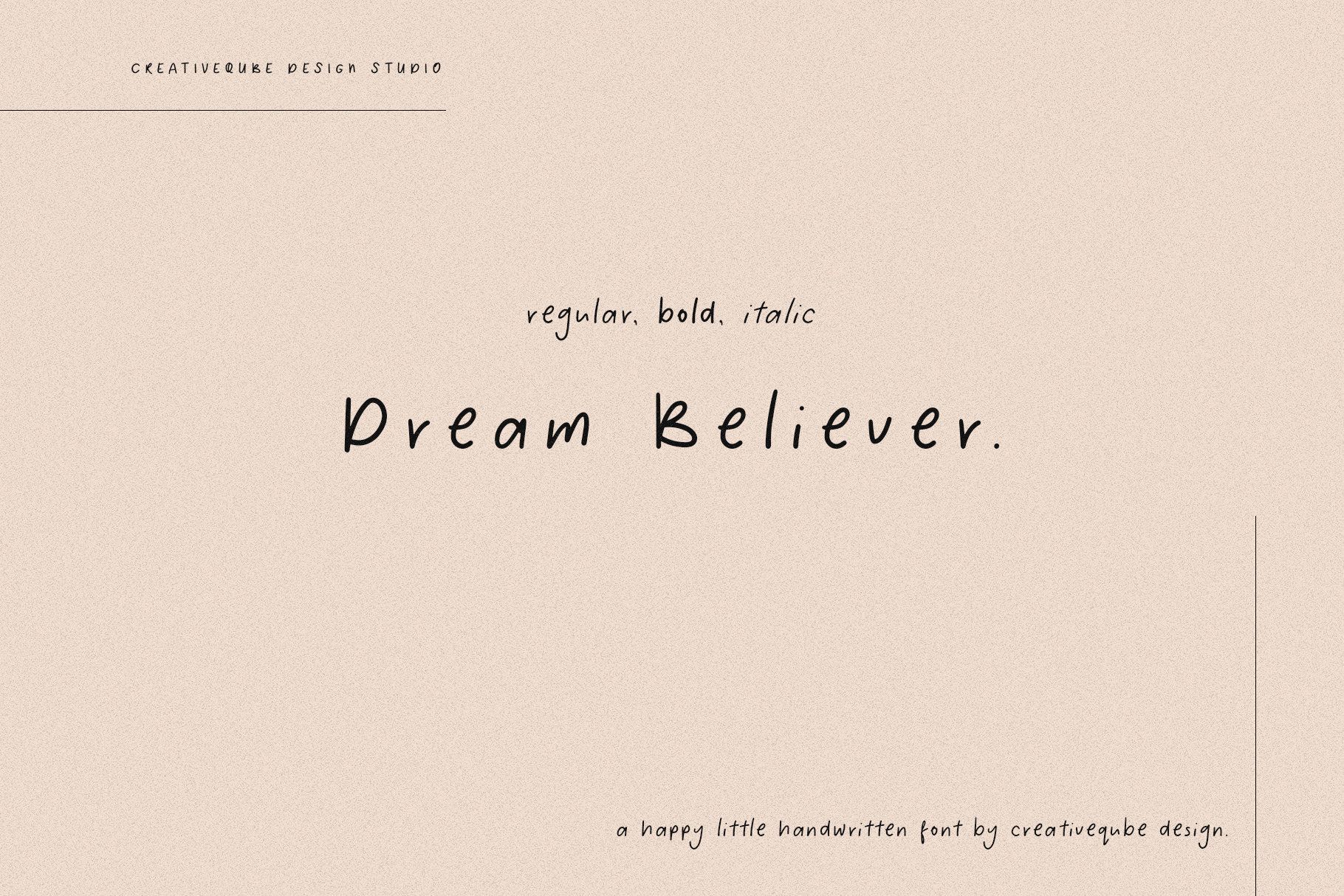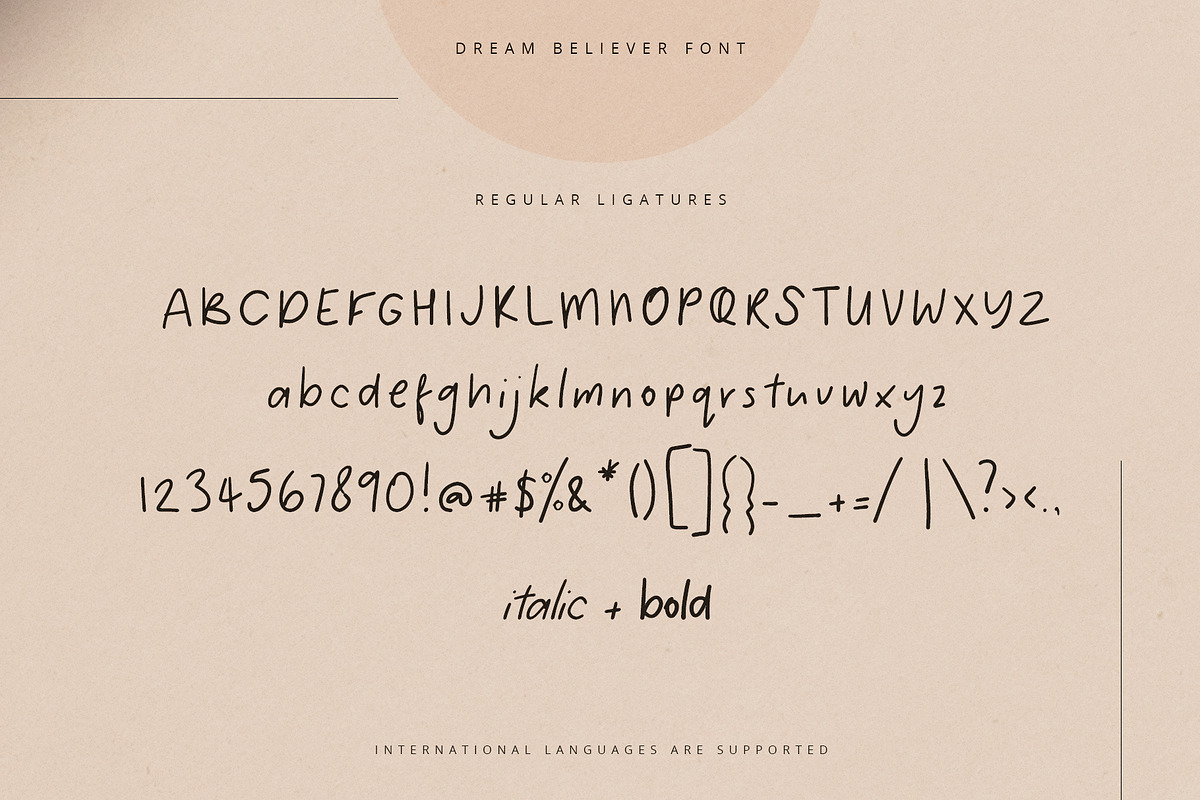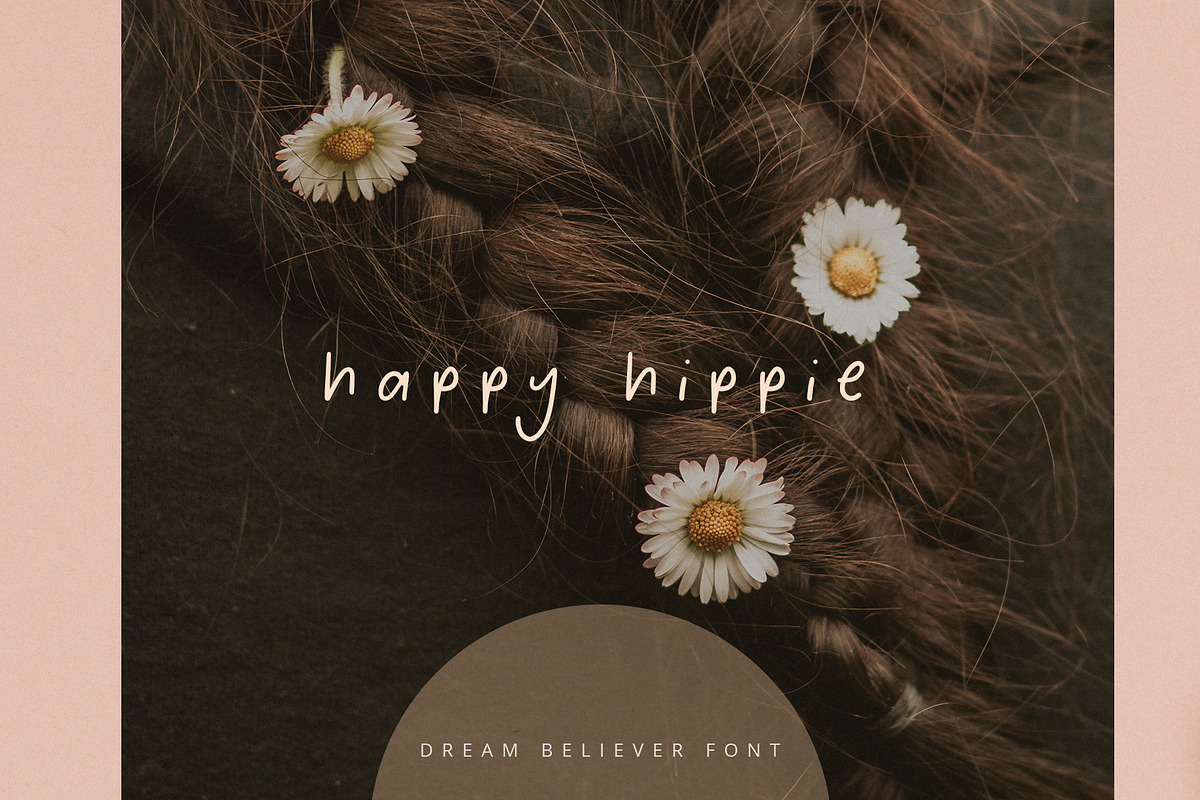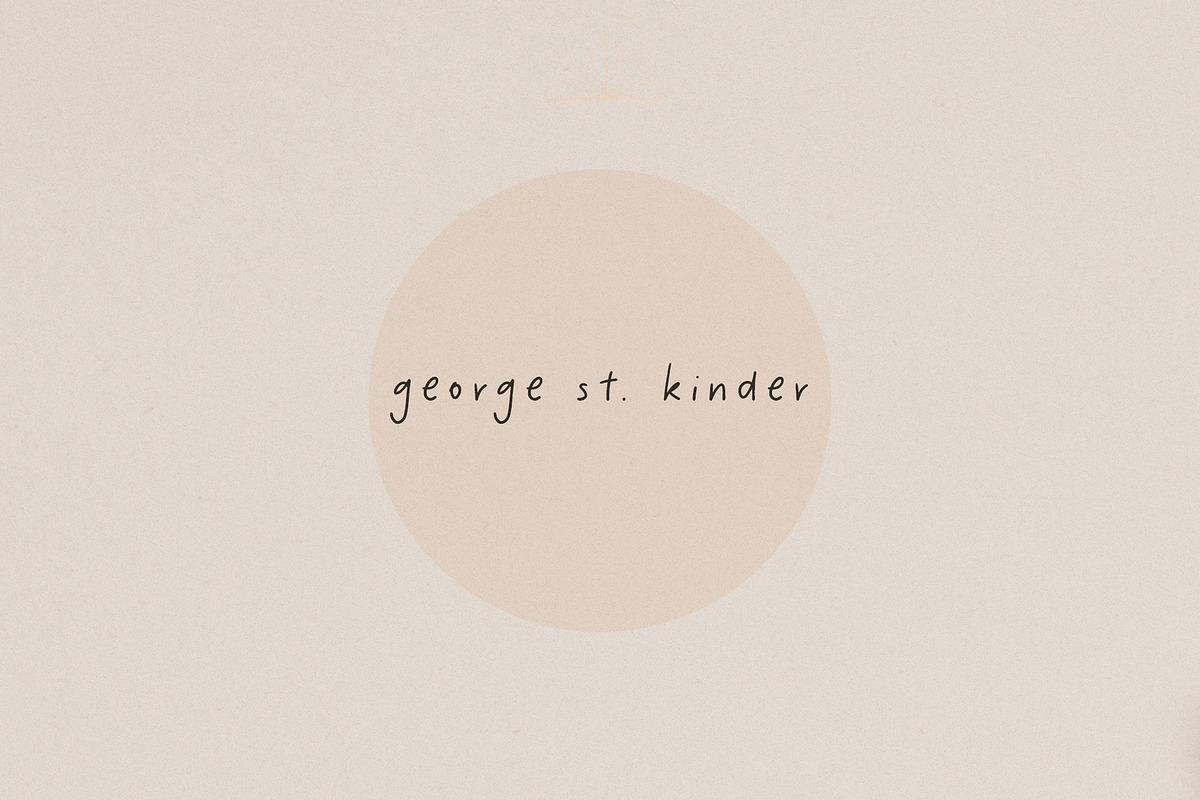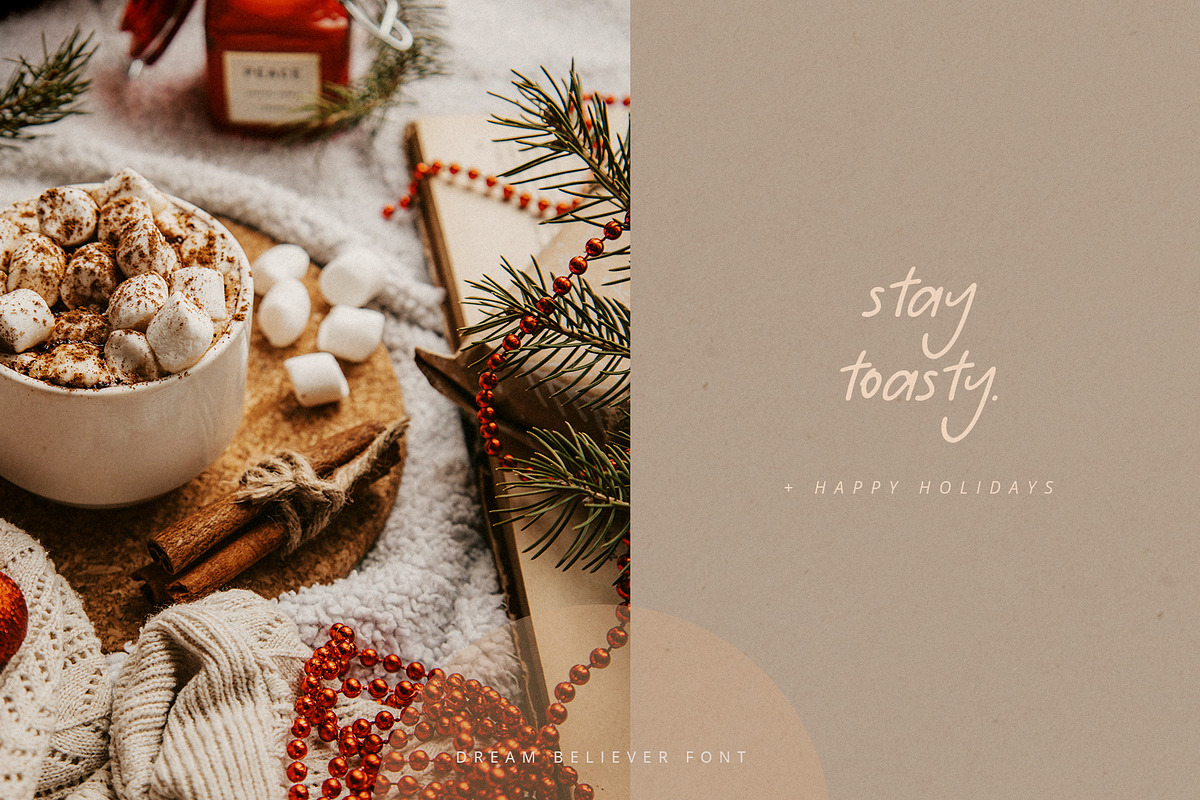
Dream Believer Font
Dream Believer is an fun simple little handwritten font that makes for cute logos, quotes, wedding invites, blog posts, Instagram, and more!
Dream Believer includes a full set of lowercase and uppercase ligatures. International language is supported.